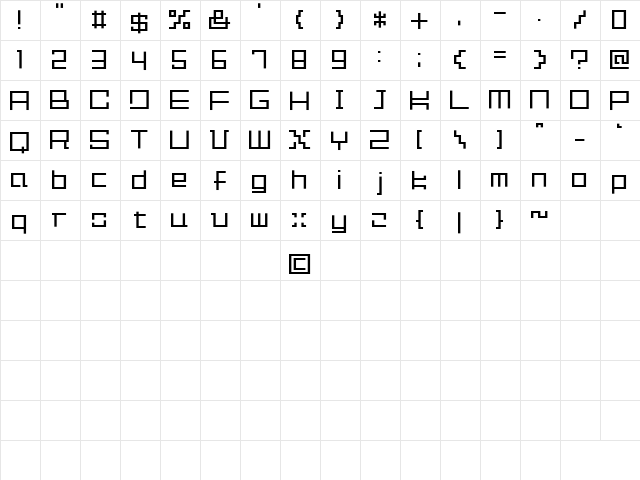
XSquare Regular
Design Context for XSquare Typeface
XSquare is a composed and adaptable typeface that performs quietly and consistently across a wide range of design contexts.
Pro Tip: Pair XSquare with a font of contrasting weight or personality to build a more expressive typographic hierarchy.